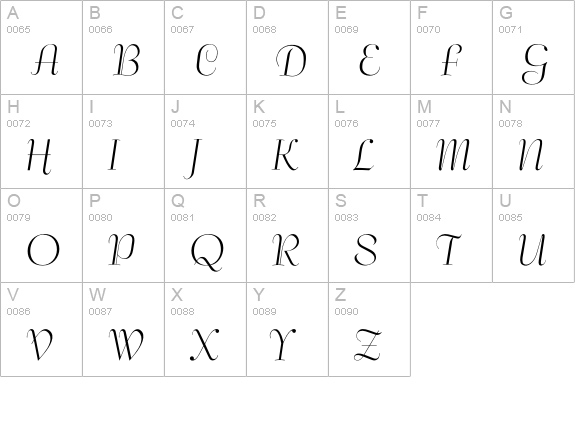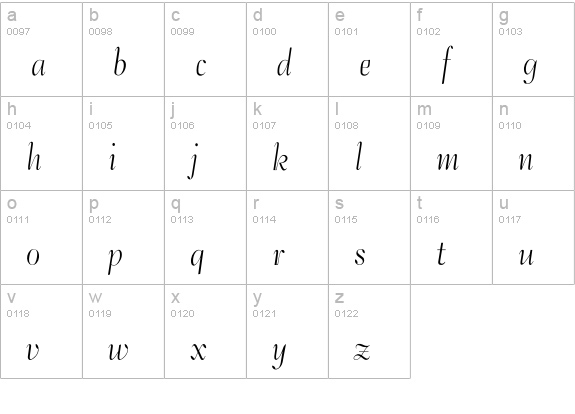
BernhardTango Font Details
Introducing BernhardTango font - a delightful and charming typeface that exudes elegance and sophistication. This versatile font strikes the perfect balance between classic and modern design elements, making it suitable for a wide range of creative projects. With its graceful curves and intricate details, BernhardTango font is sure to captivate and inspire your audience. Whether you're designing invitations, branding materials, or editorial content, this font will add a touch of refinement to your work. Best of all, BernhardTango font is available for free download at FontsMarket.com. You can easily access this beautiful font and incorporate it into your projects without any cost. Don't miss out on the opportunity to enhance your designs with the timeless beauty of BernhardTango font. Download it today and elevate your creations to new heights!